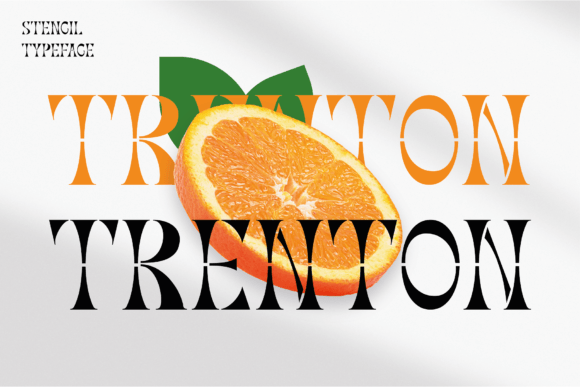
In a world where visual storytelling reigns supreme, where every detail speaks volumes, allow us to introduce you to Trenton, the serif stencil font that will make your designs stand out from the crowd. Trenton is not just a collection of letters and symbols; it's an invitation to unleash your creativity and transform your words into art.
Picture this: a magazine cover that commands attention with its bold, confident headlines, each letter precisely cut out as if meticulously crafted by hand. Or a fashion editorial where Trenton's clean lines and crisp edges add a touch of sophistication and elegance to the images it adorns. The sports poster that captures the raw energy and determination of athletes, the blog that captivates readers with its visually enticing content, the advertising campaign that cuts through the noise and leaves a lasting impression - these are just a few examples of what Trenton can achieve.
But Trenton's versatility doesn't stop there. From invitations and posters to quotes, book covers, stationery, and beyond, this font has the uncanny ability to elevate any design with its timeless charm and unwavering legibility. Whether you're a seasoned designer looking to add a touch of uniqueness to your work or a creative enthusiast seeking a font that matches your bold vision, Trenton is your perfect companion.
So, dive into the world of Trenton and let your imagination soar. Create logos that speak volumes, editorials that captivate, and fashion statements that turn heads. Use Trenton for advertising campaigns that make a lasting impact, invitations that hint at the extraordinary, and posters that command attention. Let Trenton be your secret weapon for book covers that entice readers, stationery that exudes personality, and more.
The possibilities are endless, and the only limit is your imagination. Unleash the power of Trenton today and see your designs transformed into masterpieces. Join the ranks of those who dare to be different, those who embrace the beauty of stencil art, and those who leave an unforgettable mark on the world - one design at a time.